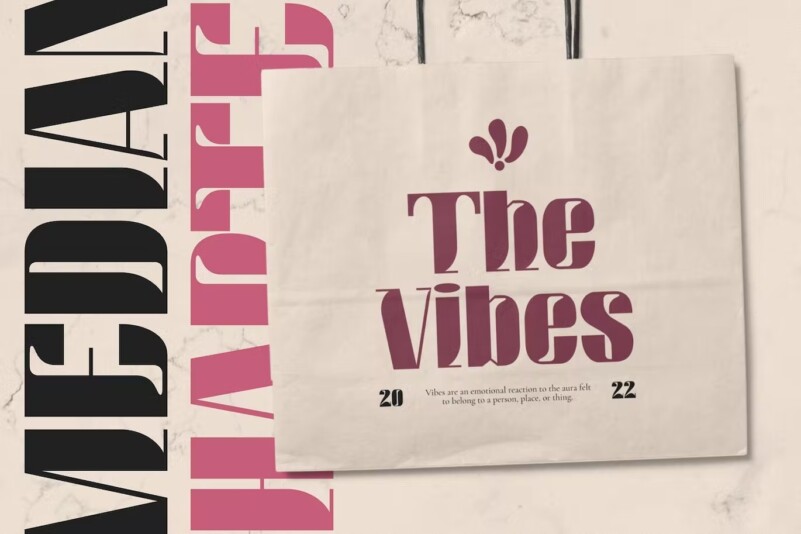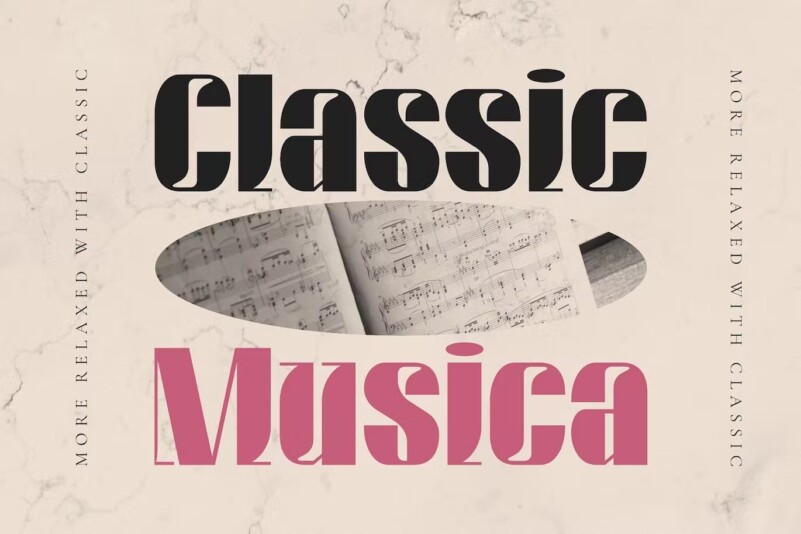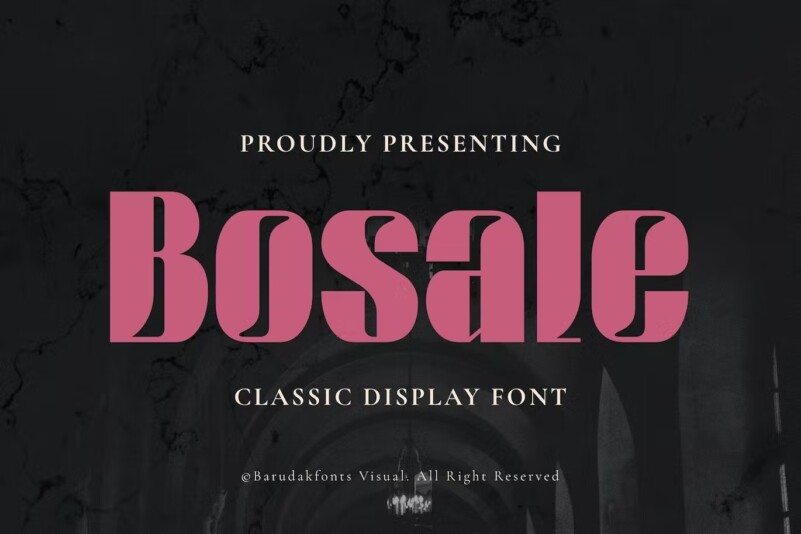
Bosale – Serif Bold Displat Font
Bosale Display Font – Bold with serif. You can modify and use this artwork set creatively on merchandise, Logo, stickers, patches, badges and many more.